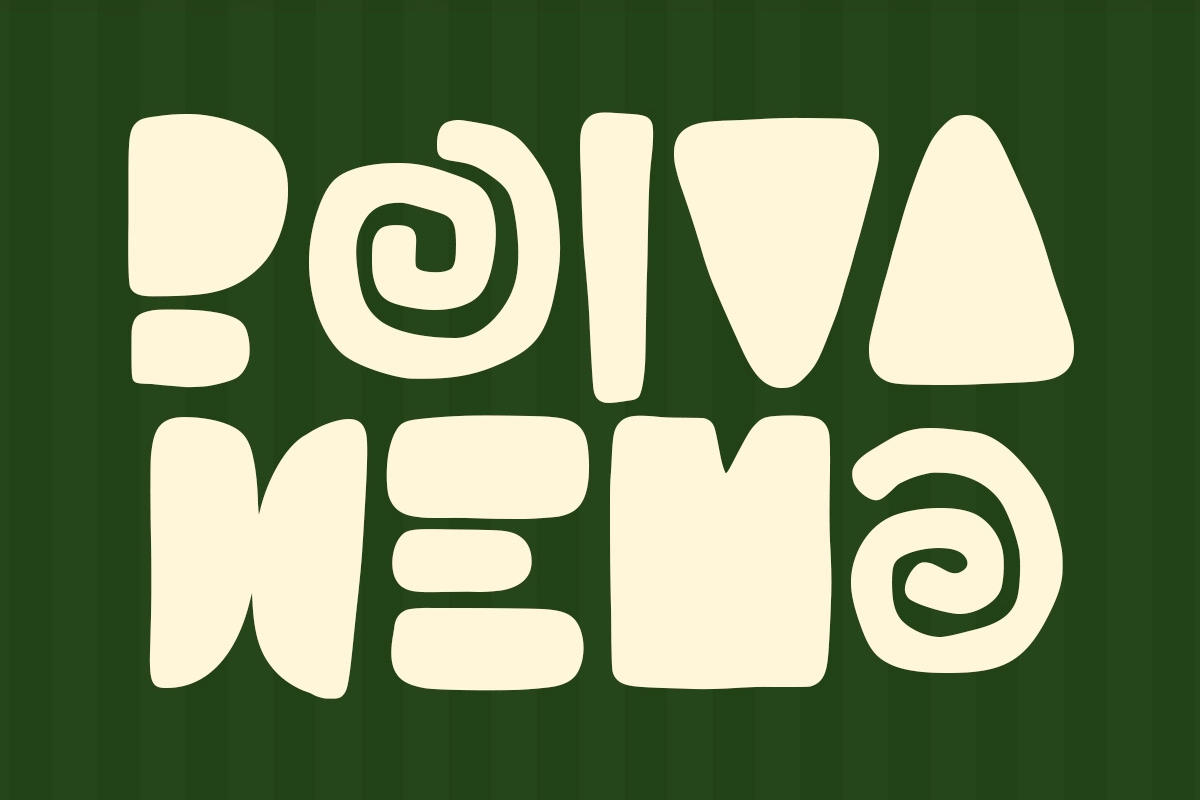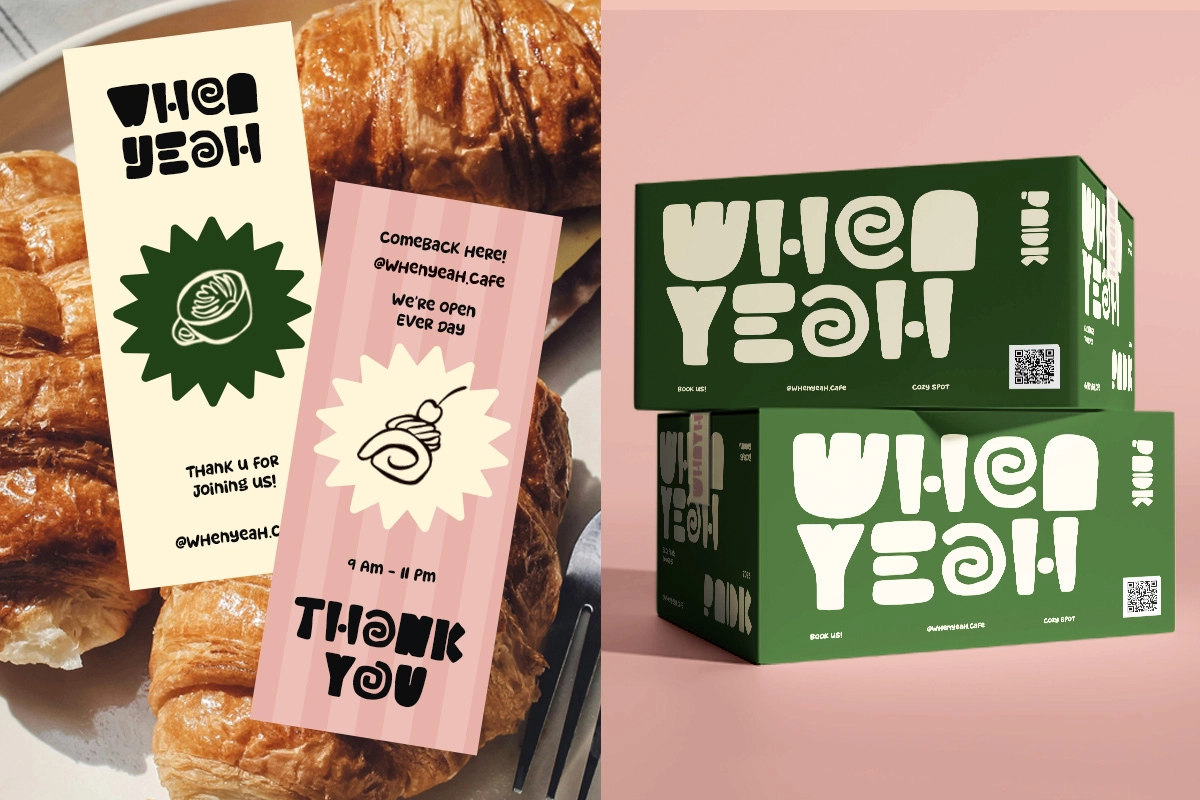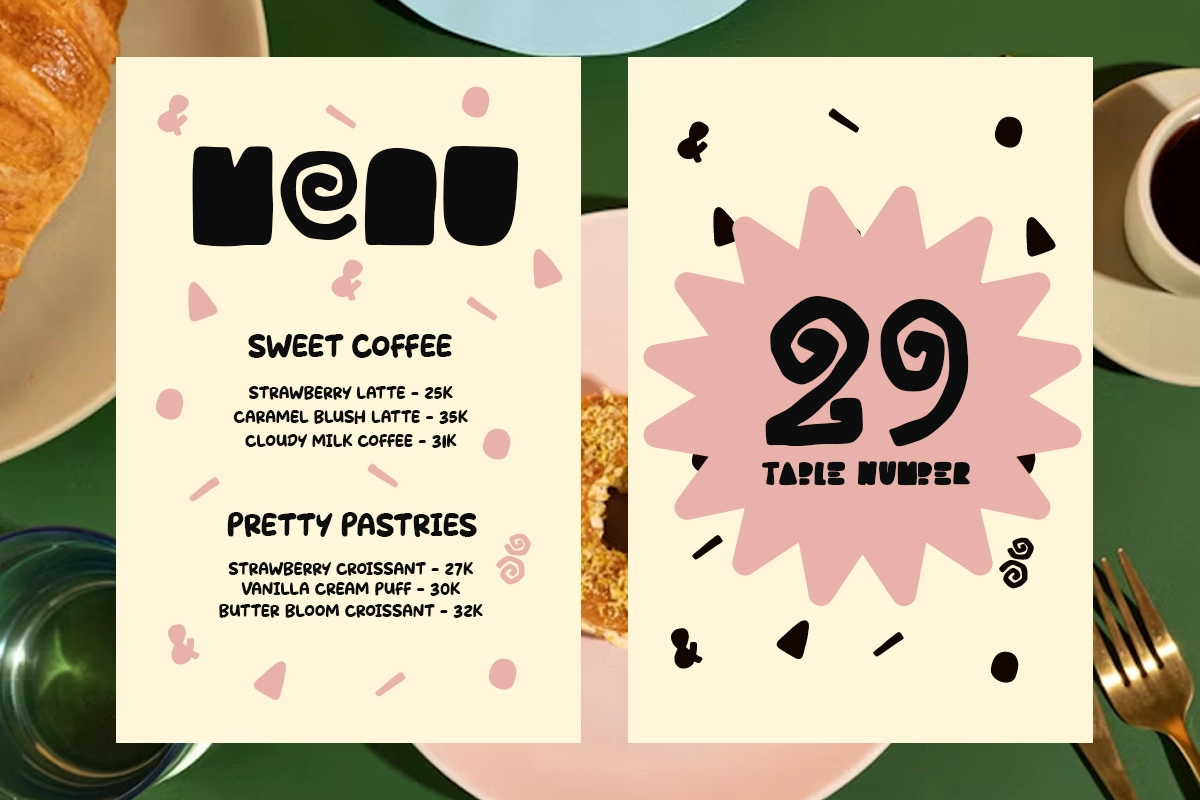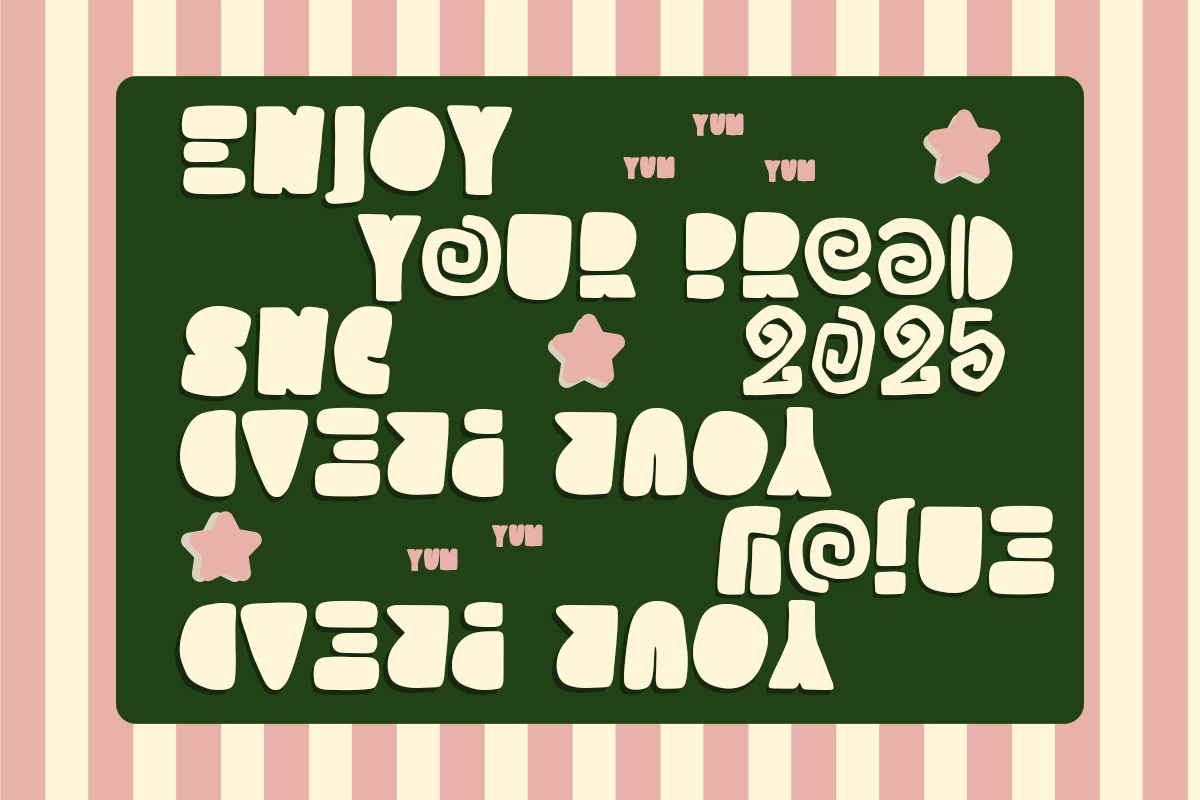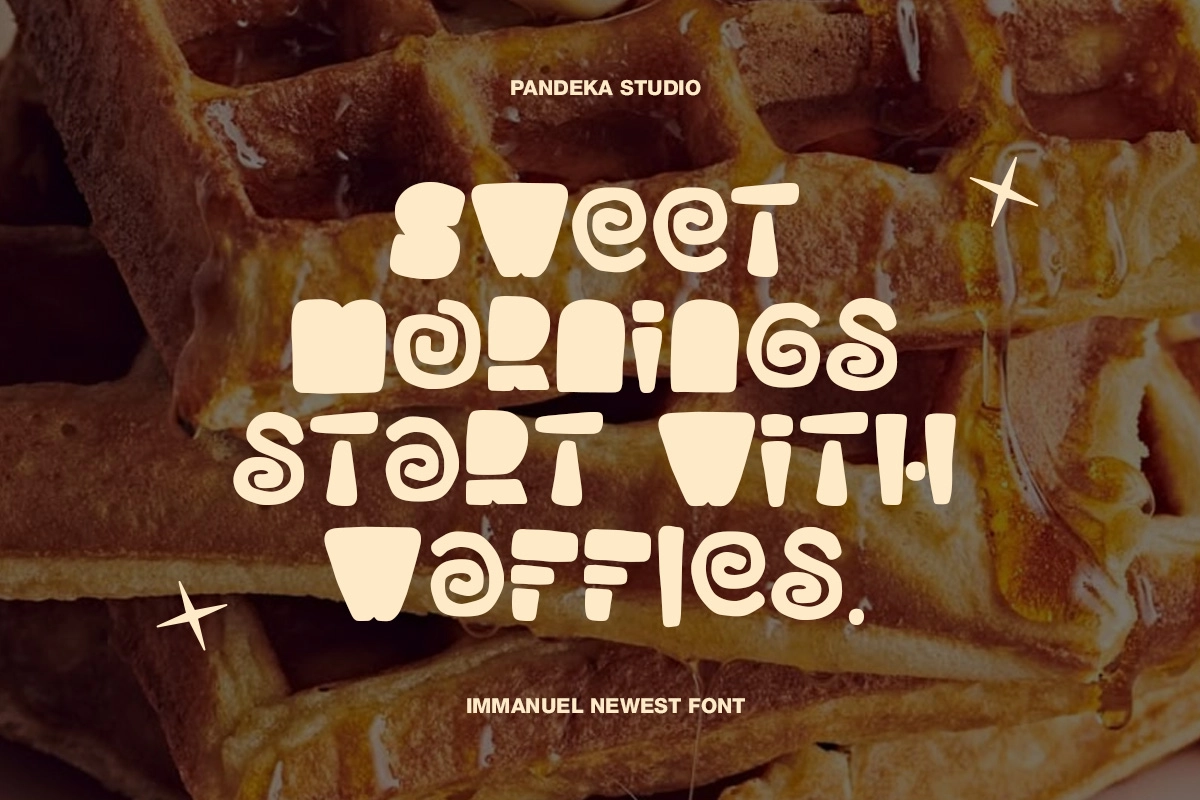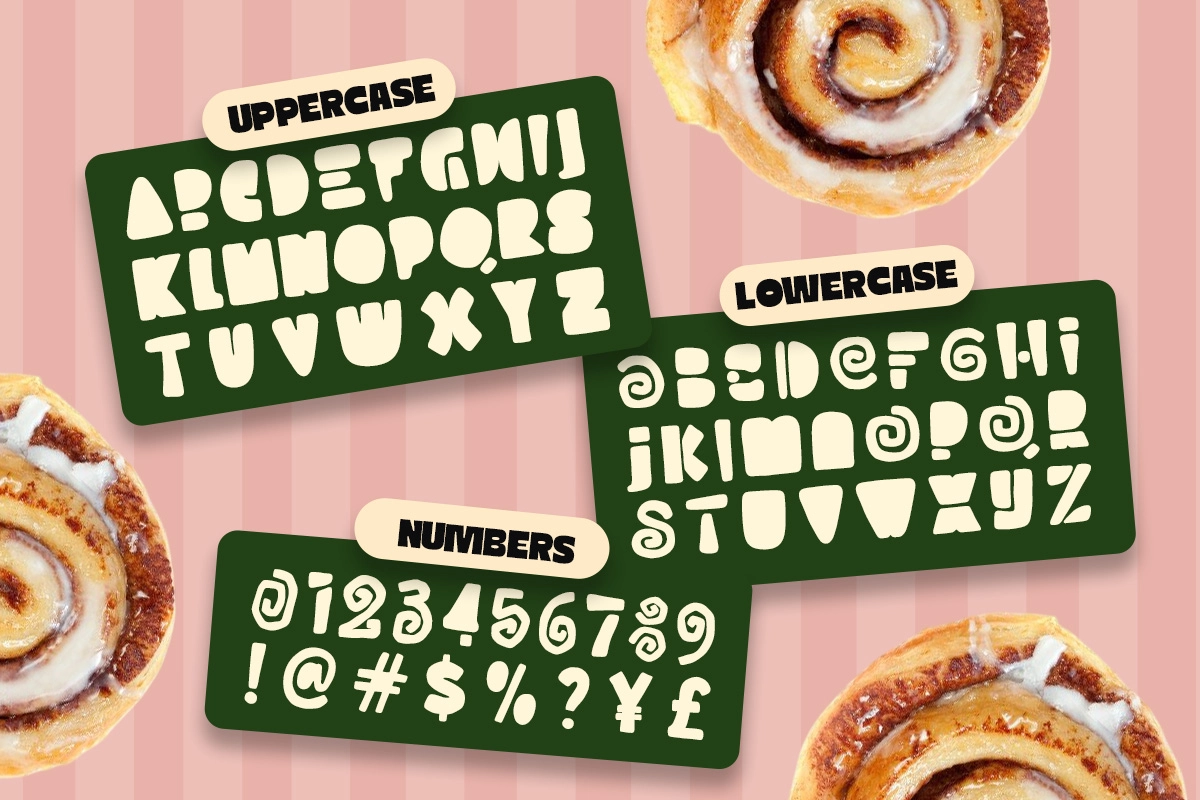
Bolva Hema - Playful Bubble Font
Bolva Hema
Bolva Hema is a playful bubble font that pairs chunky, irregular blob shapes with spiral swirl accents echoing cinnamon roll pastries and hand-cut paper collage. Thick, uneven strokes and rounded corners give every letter a quirky, hand-shaped charm, closer to a cut-paper craft project than a standard typeface.
Bolva Hema works best in short, punchy settings where a wordmark can be loud and cheerful without losing legibility. Use it for cafe branding, bakery logos, food packaging, menu design, café signage, and social content.